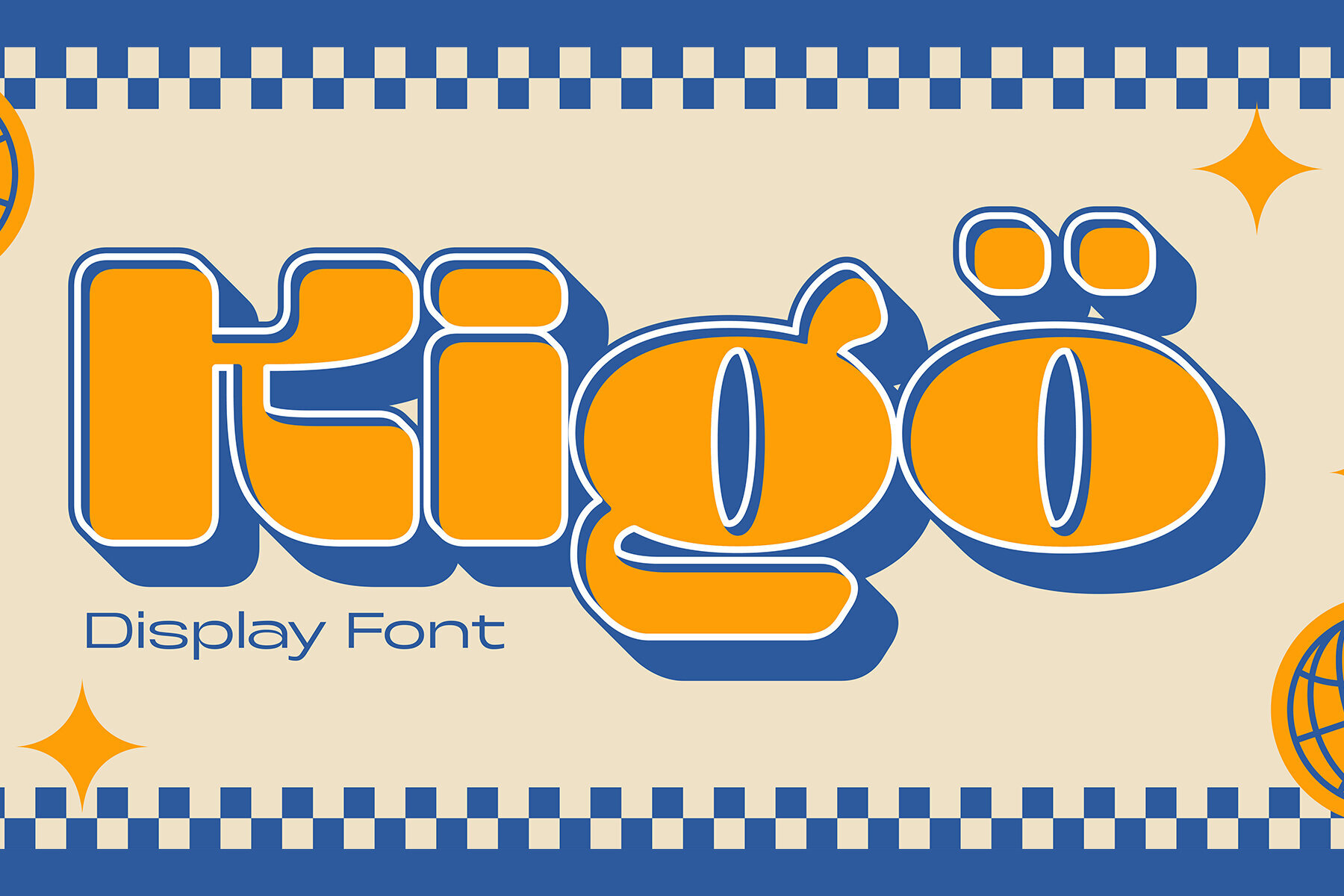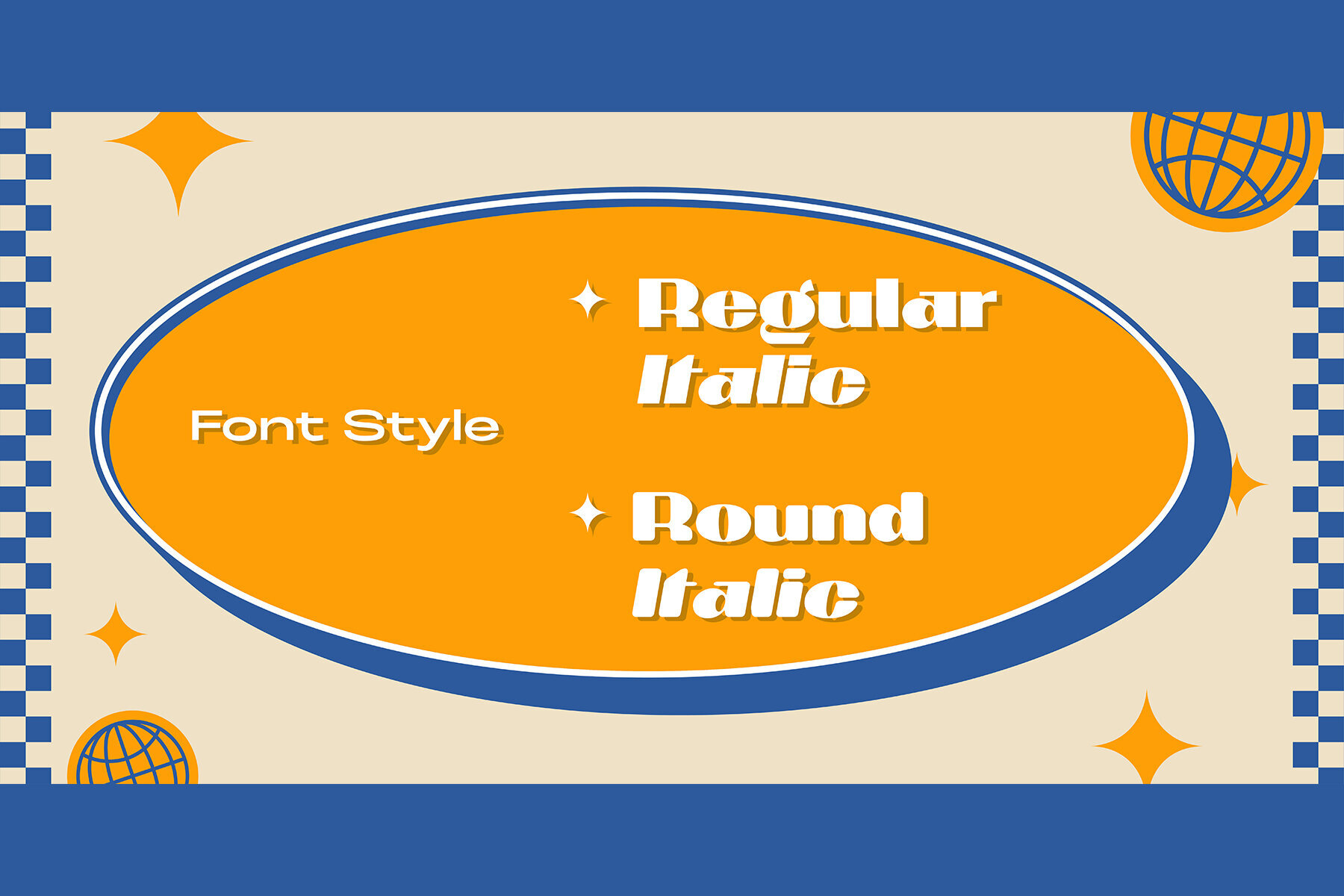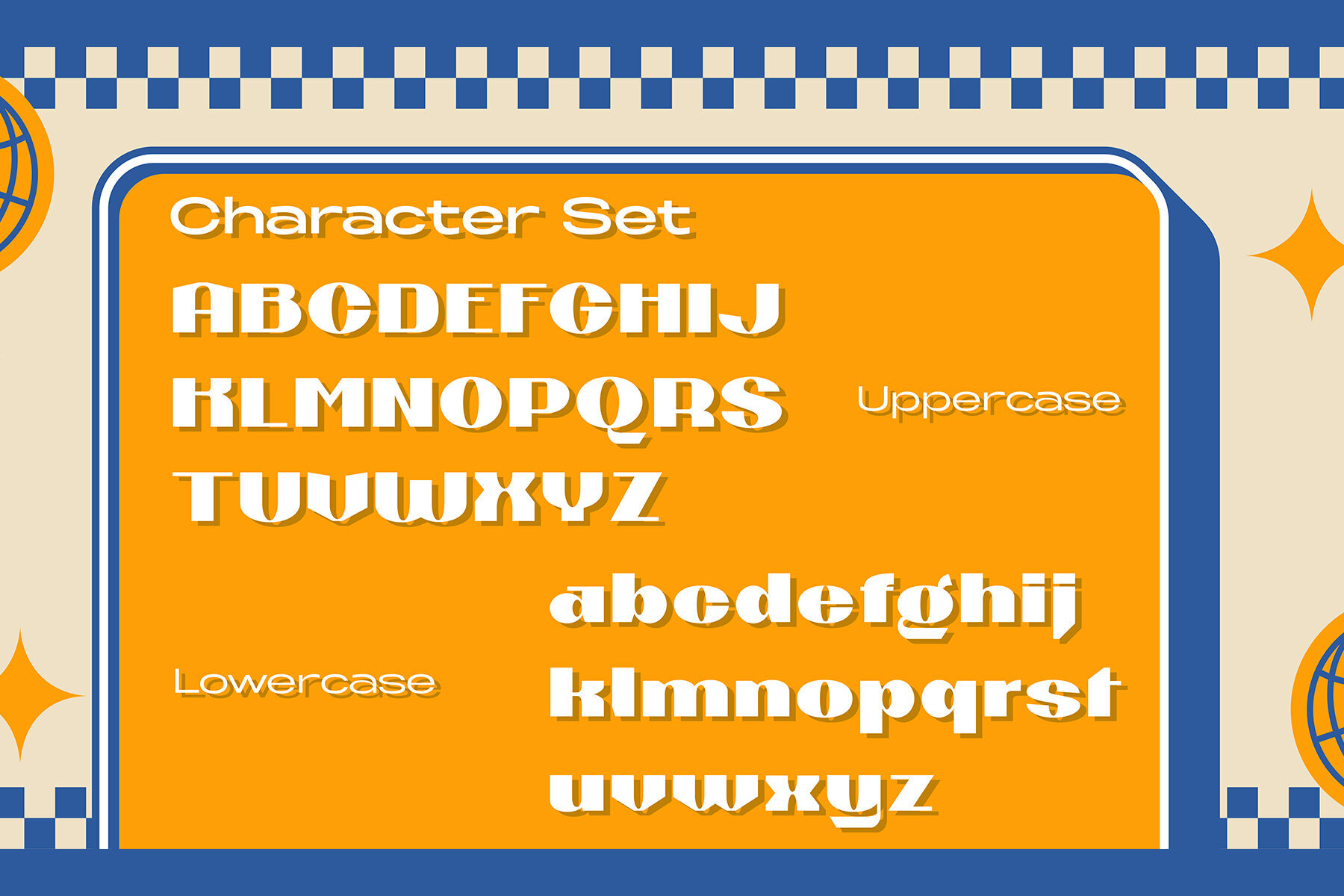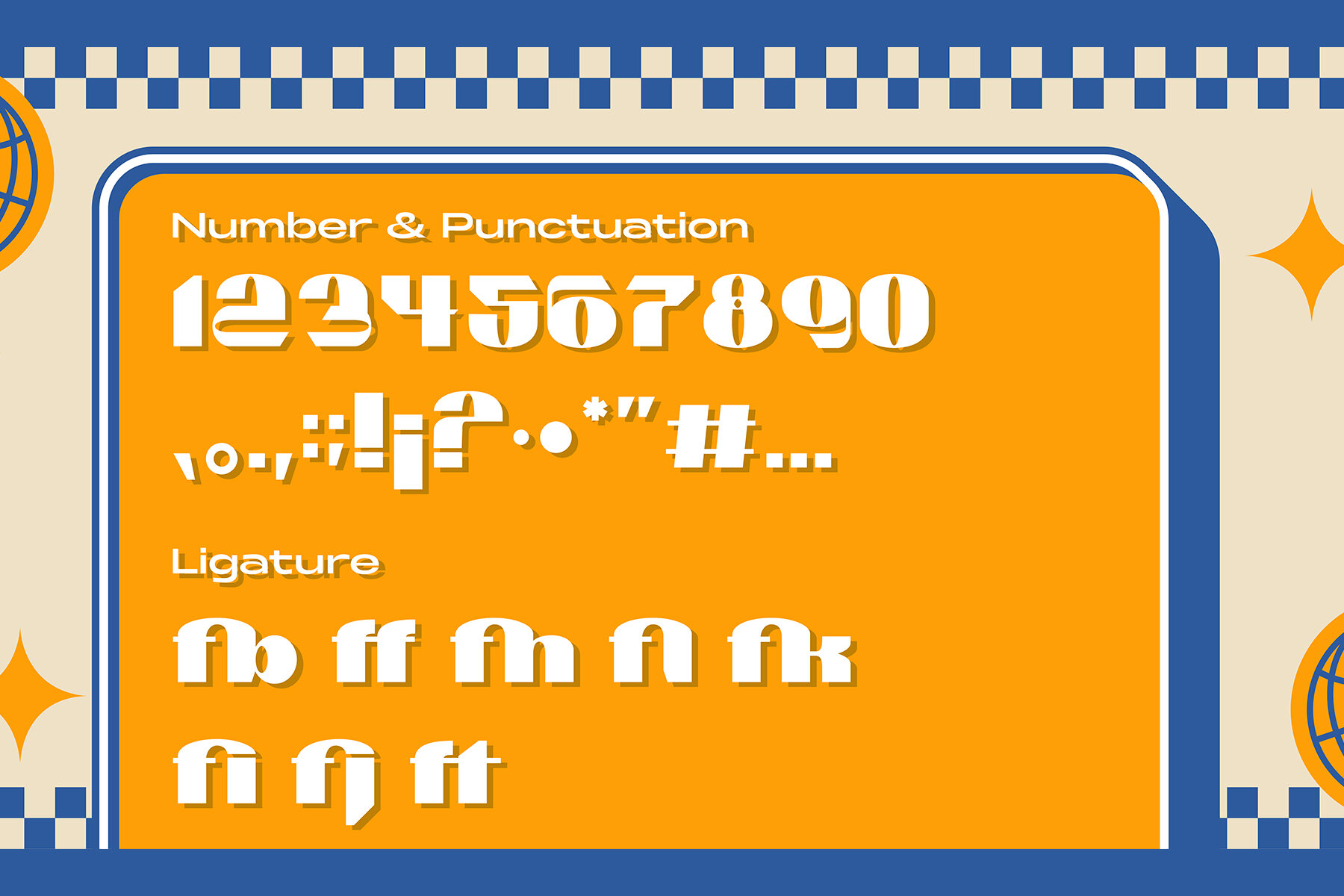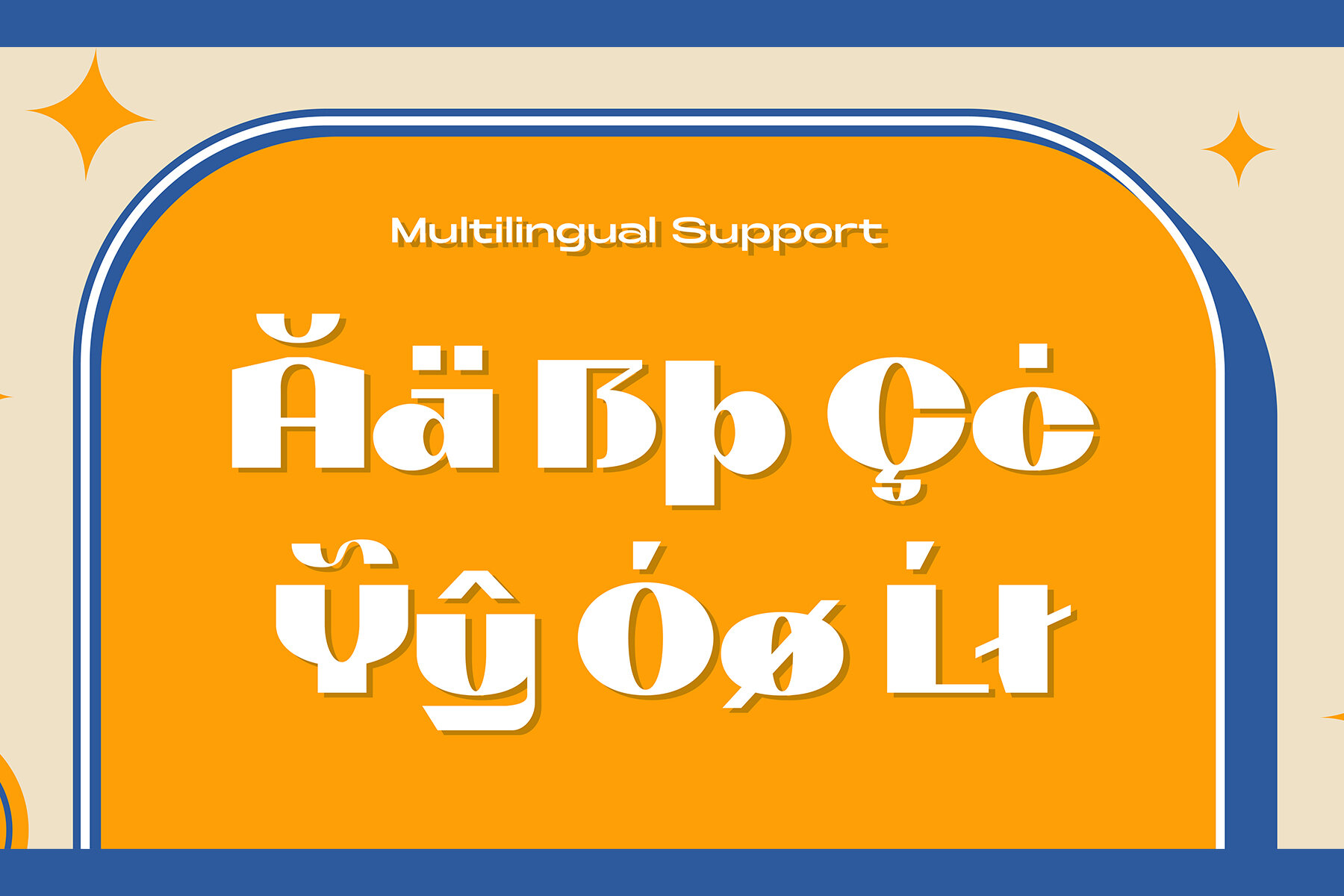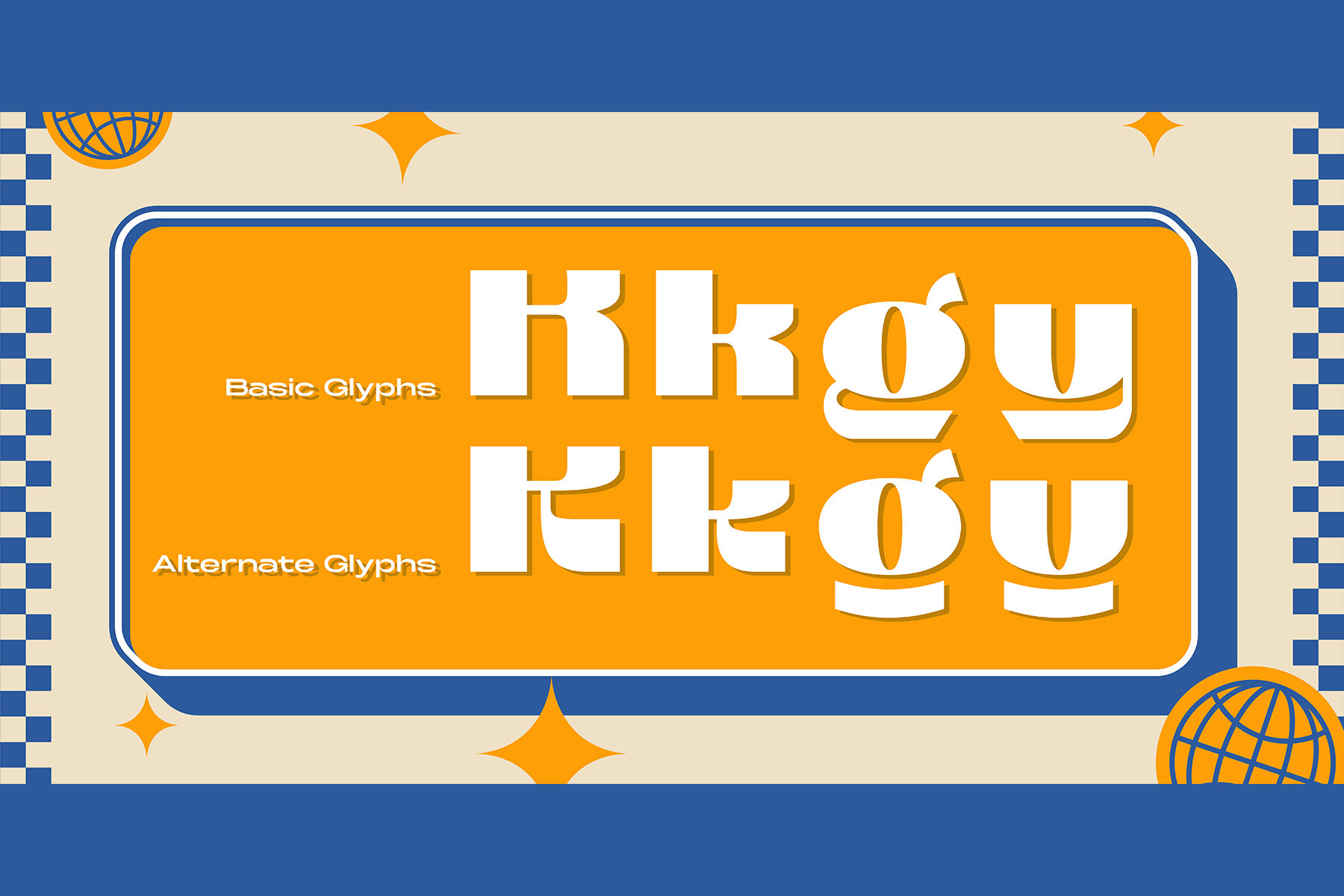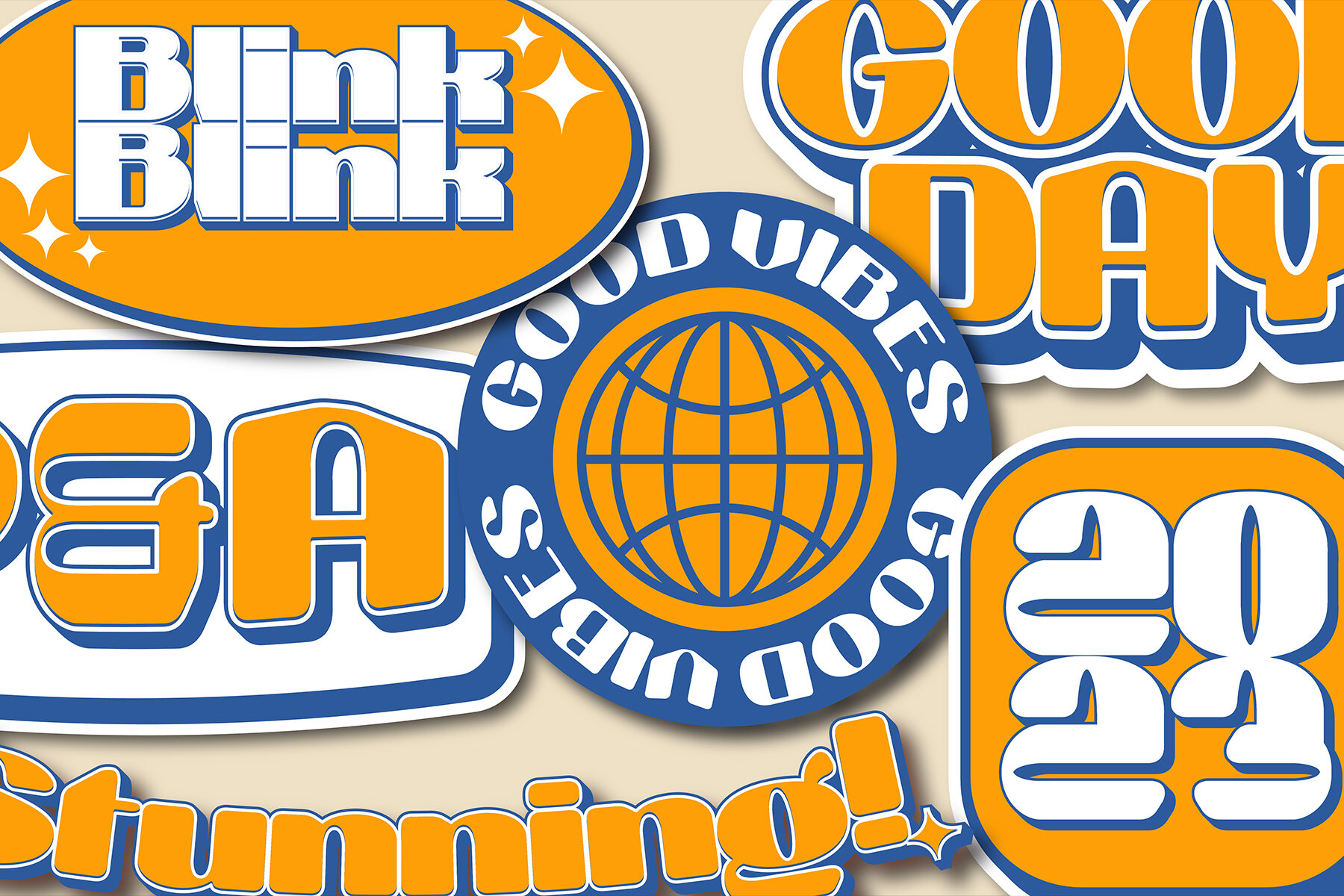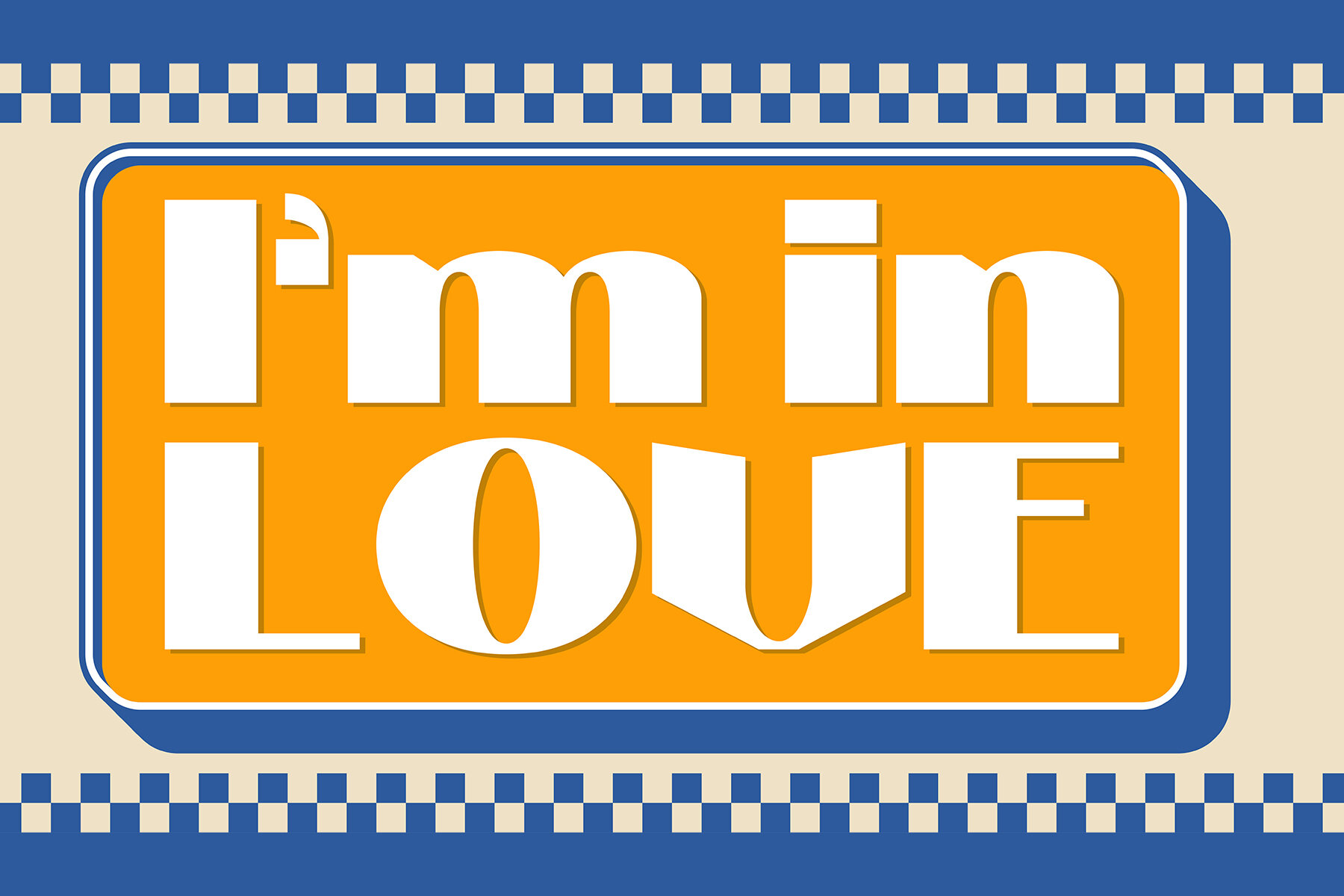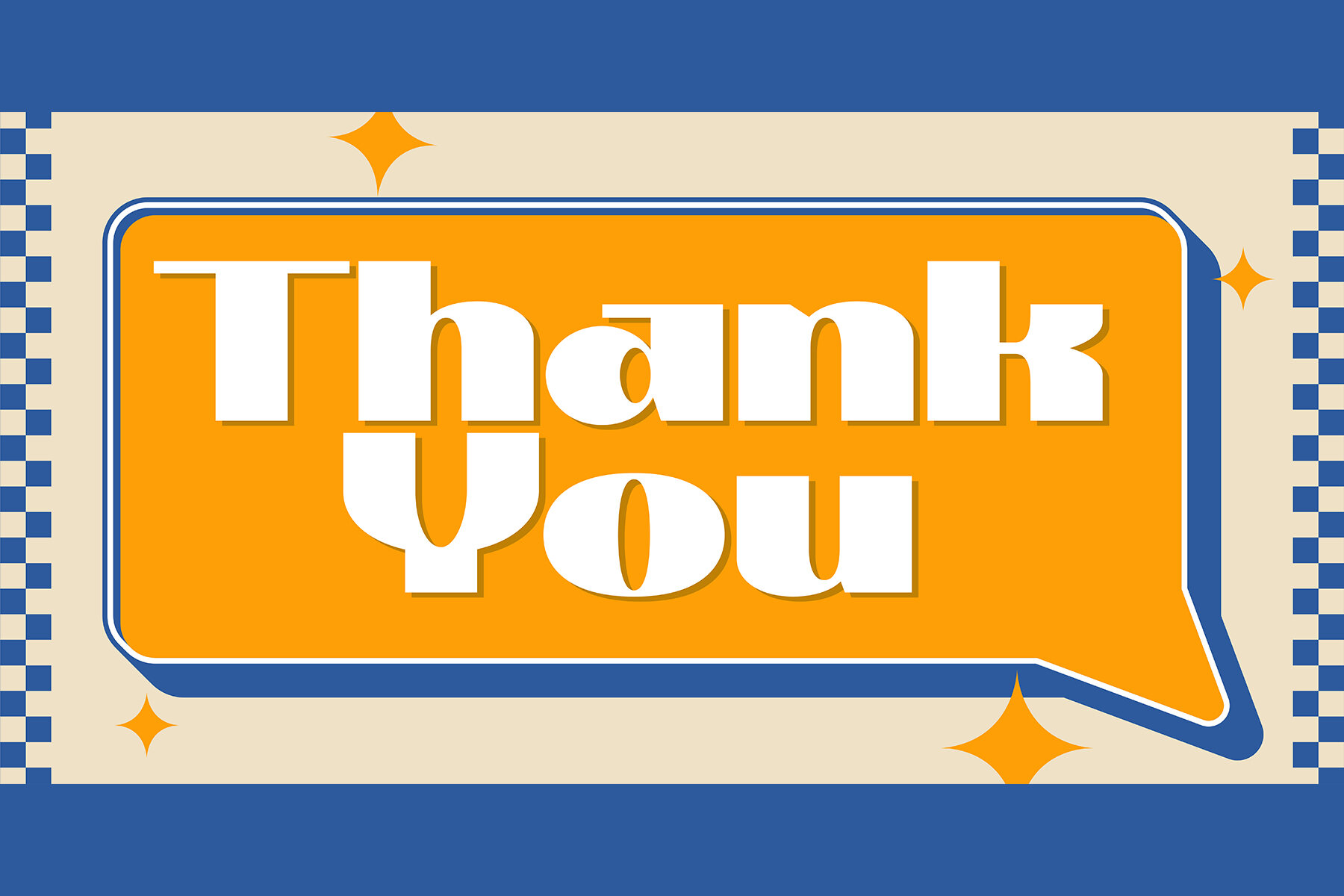
Kigo Font
Artistic, bold, and creatively designed – Kigo Font is the perfect choice for graphic designers who want to add an element of fun to their designs. Inspired by retro sans serif and the beloved shape of a cat, Kigo Font combines classic design with whimsy. With 4 styles including Regular, Round, Regular Italic and Round Italic, this font family offers versatility in every project you undertake. The multilingual support of Kigo allows you to seamlessly incorporate your message in any language without compromising on style or clarity. Perfectly suited for professional use, Kigo Font adds that touch of personality without sacrificing professionalism. Whether it’s for branding projects or marketing collateral, let Kigo Font be your go-to choice when looking to create something truly unique. Upgrade your designs today with this playful yet sophisticated font!